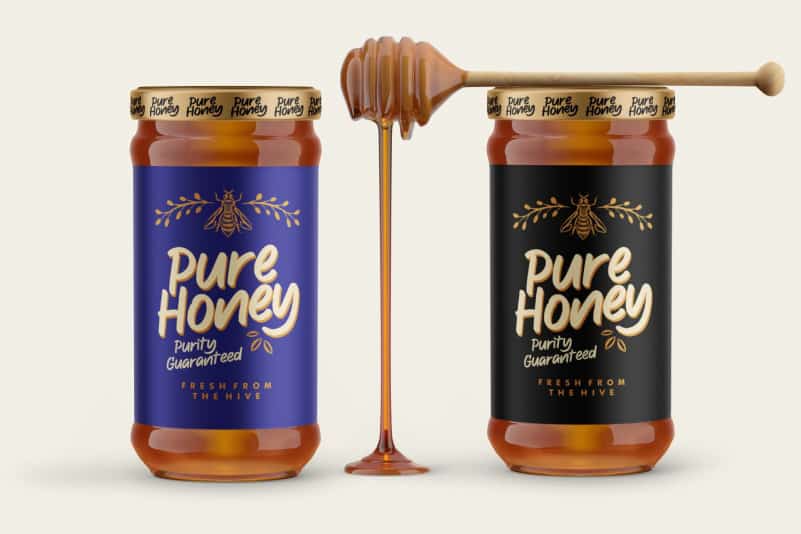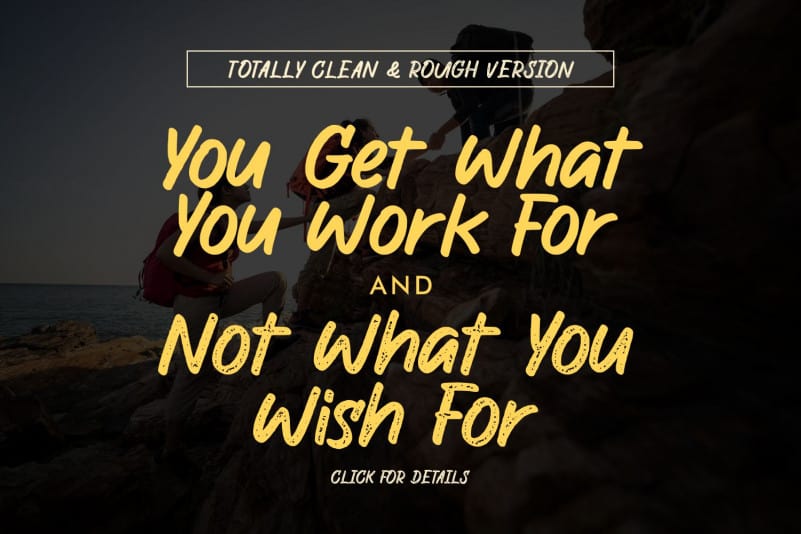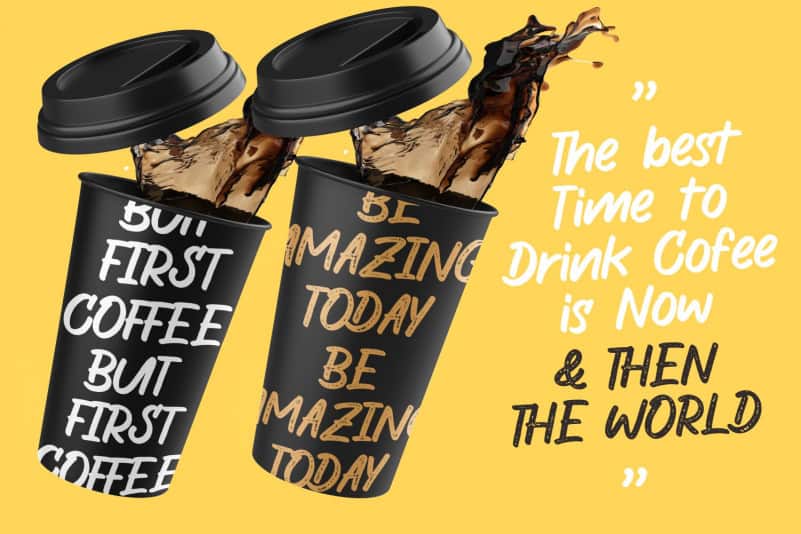
The Wild Chaos Display Font is a fun and cute hand-drawn typeface. It has thick letters and a friendly touch, and as a result, it will match a wide range of informal designs.